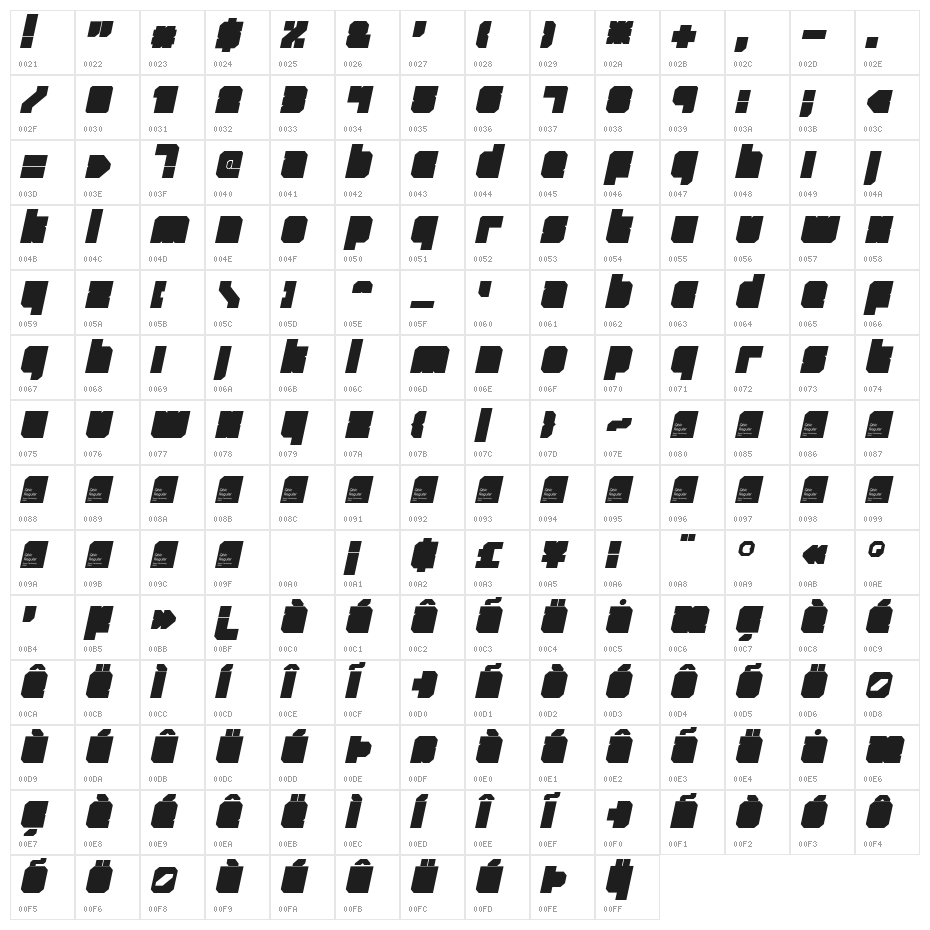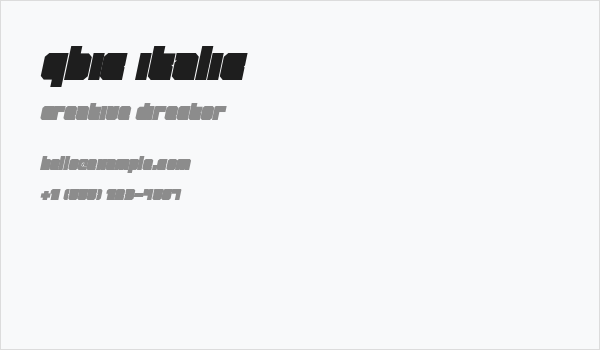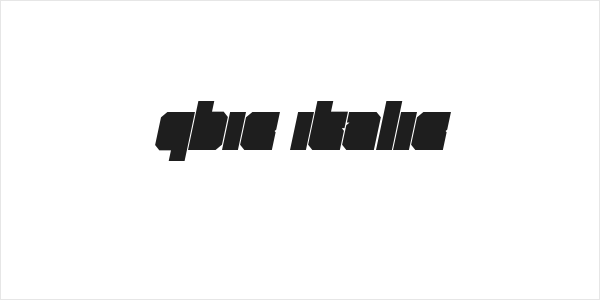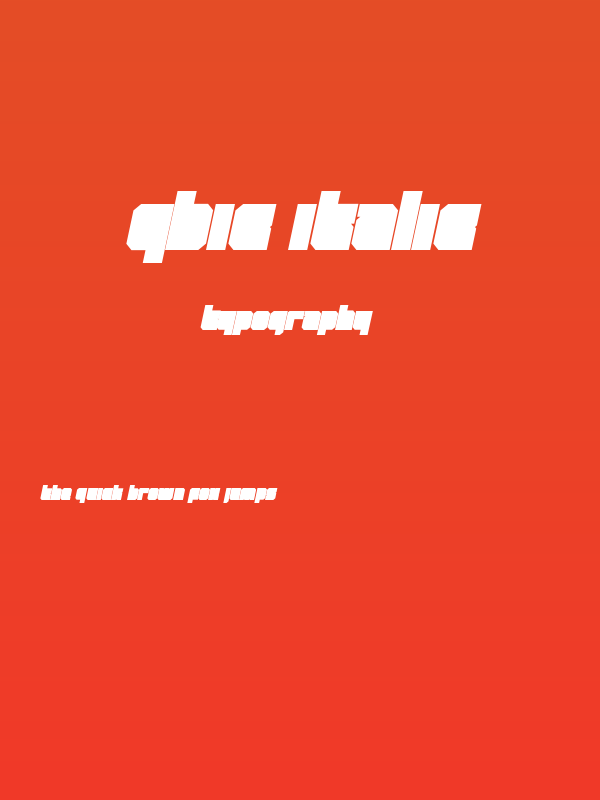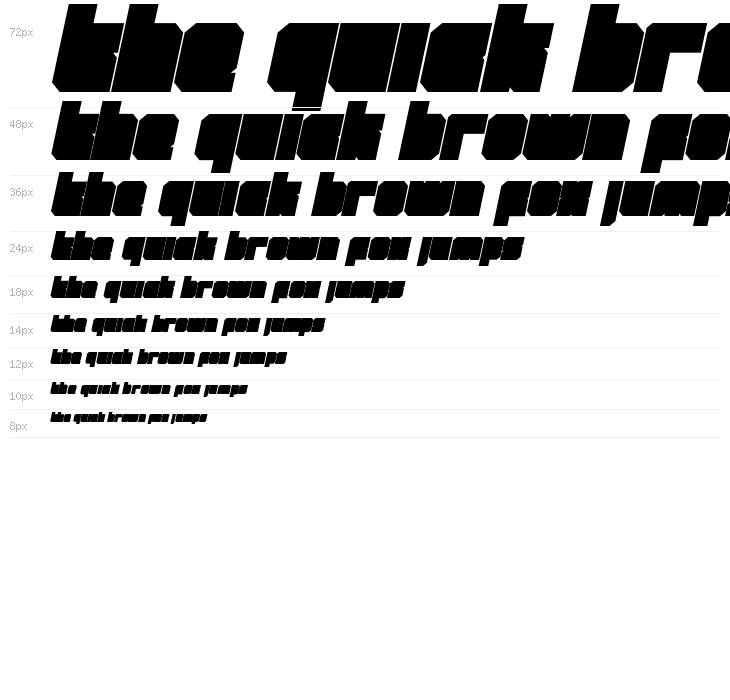
Qbic Italic Font
Qbic Italic Description
This font features a bold and geometric design with a distinct italic slant, creating a dynamic and modern appearance. The characters are constructed with sharp angles and straight lines, giving them a futuristic and edgy look. The uppercase and lowercase letters maintain a consistent style, with the lowercase mirroring the uppercase in form and structure. Numbers and special characters follow the same angular and bold aesthetic, ensuring uniformity across the typeface. The font's unique style makes it stand out, ideal for projects that require a strong visual impact.
Proposed ProjectsIdeal for branding, posters, album covers, and any design needing a futuristic touch.